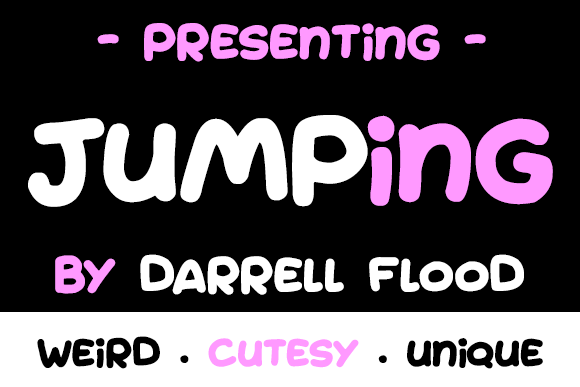
Jumping Font
About Jumping Font
Jumping is a cutesy, casual font in a fun, loose and quirky style. It comes in a regular and italic style and is perfect for cartoons and comics!